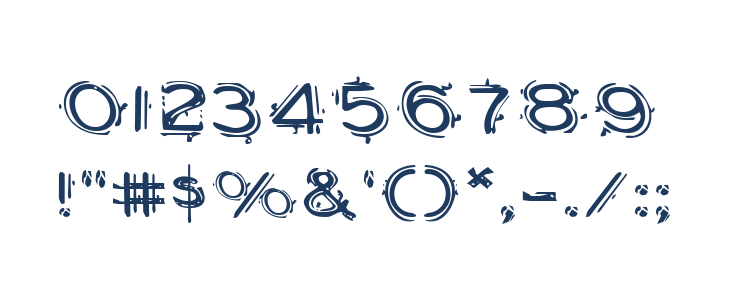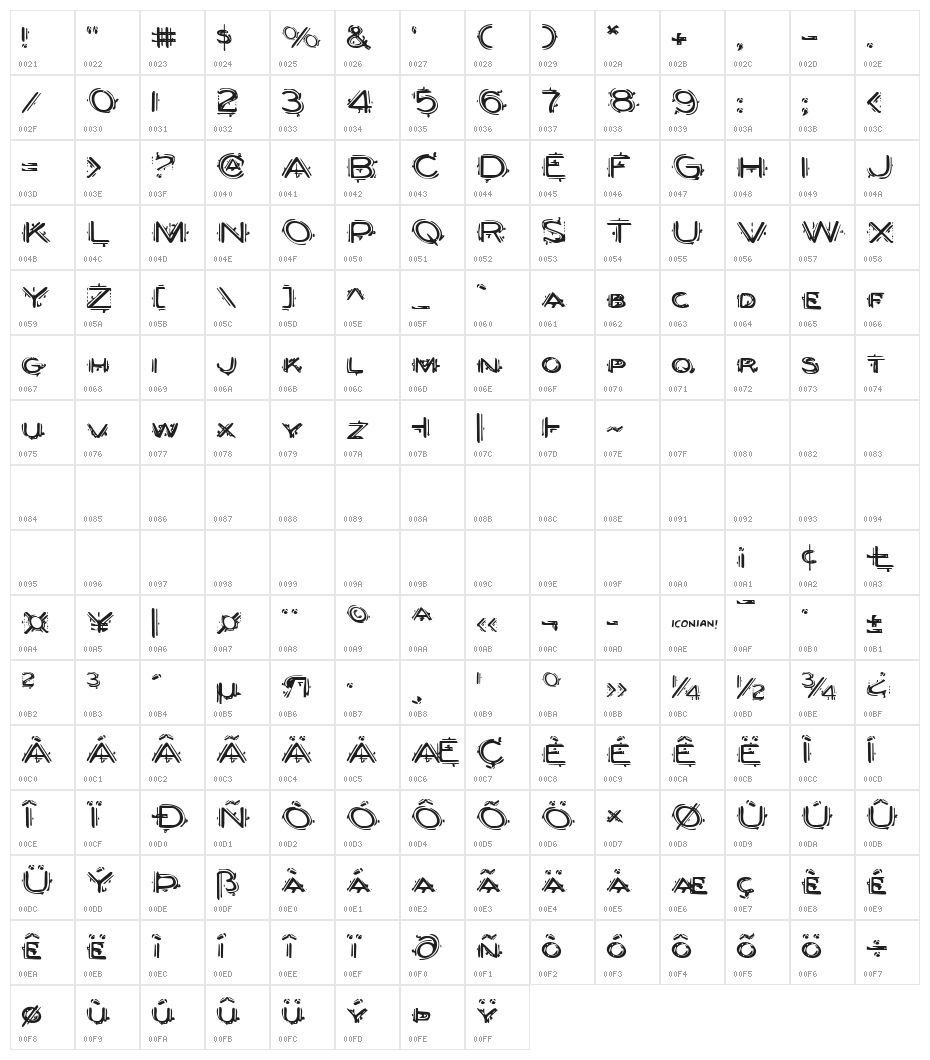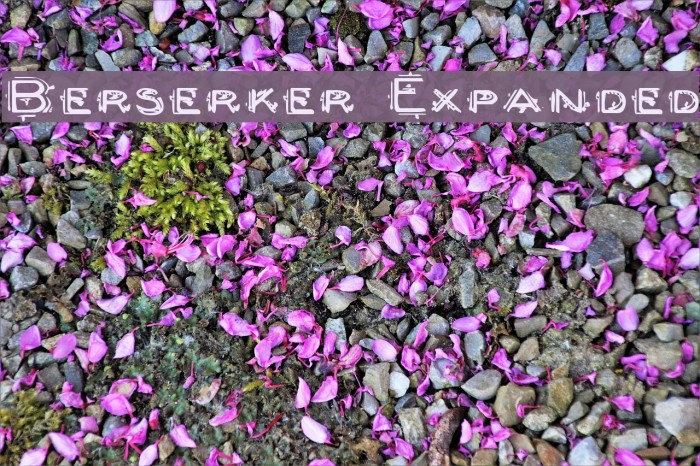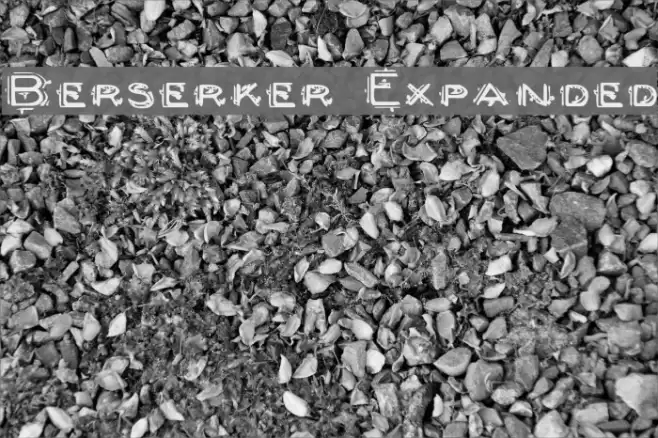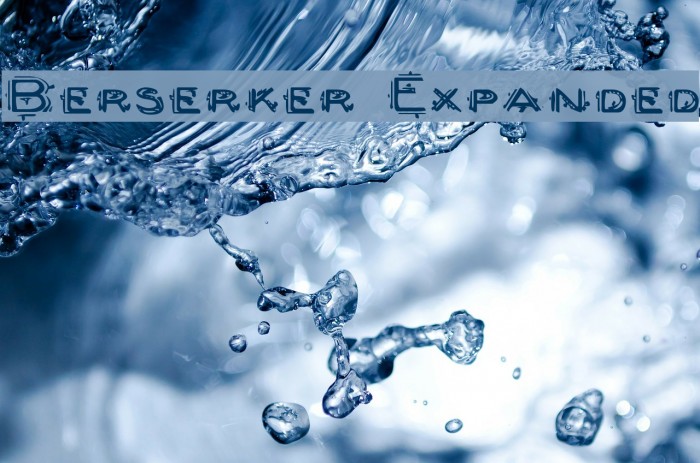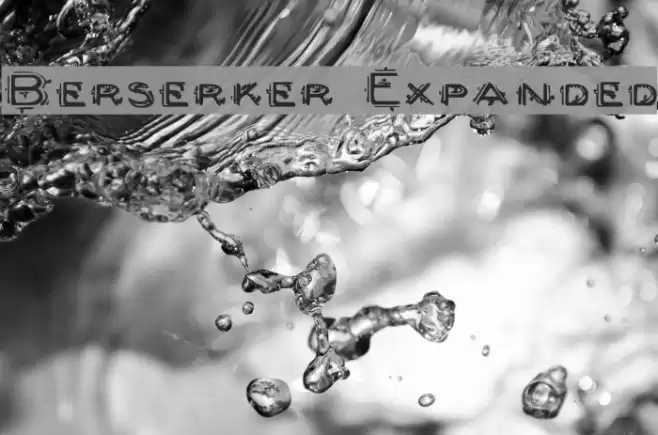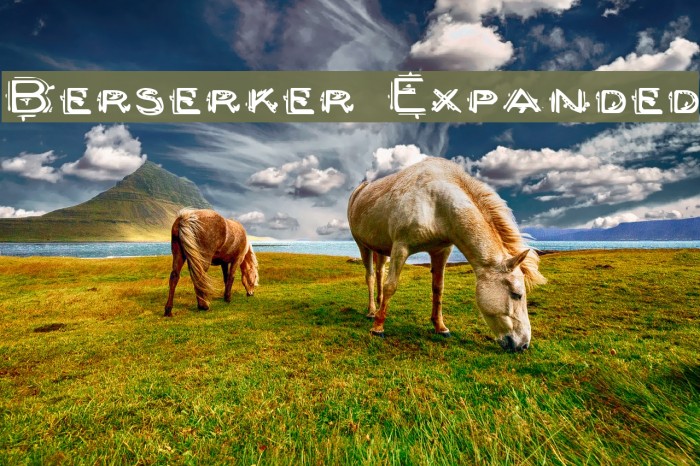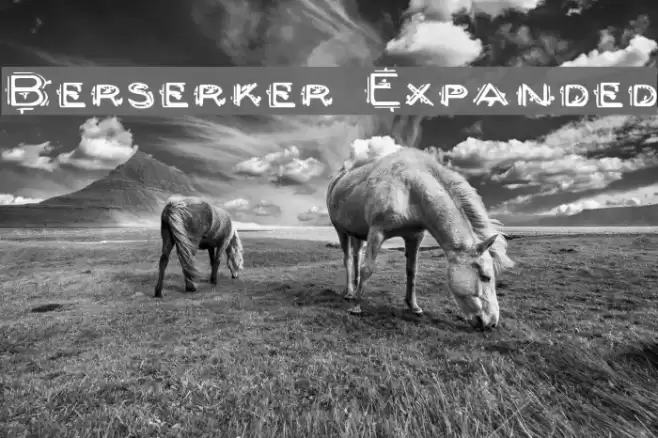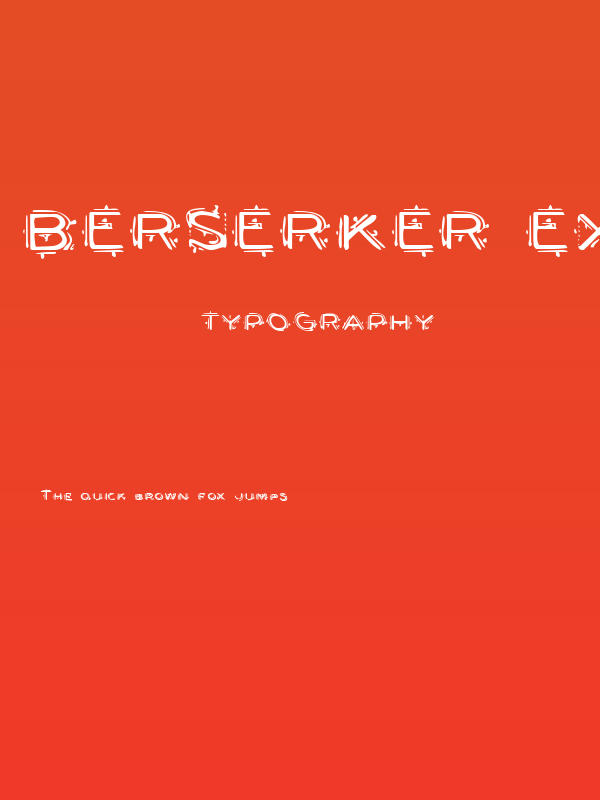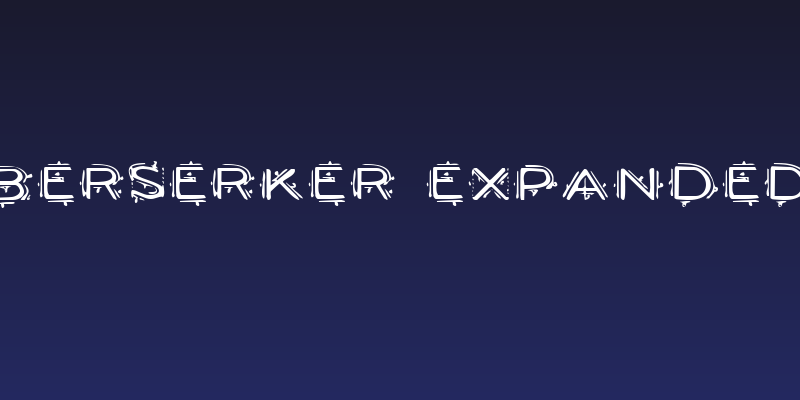
Berserker Expanded Font
Berserker Expanded Description
This font features a bold, distressed style with a unique, grungy aesthetic. The characters are heavily stylized with rough edges and irregular shapes, giving them a chaotic and energetic appearance. The design incorporates elements that suggest wear and tear, adding to its rugged and rebellious feel. Each letter is distinct, with varying degrees of distortion and texture, creating a dynamic and eye-catching look. The font's expanded width enhances its boldness, making it stand out in any design. It is perfect for projects that require a strong, impactful visual presence.
| Overall Style | Grunge, Distressed |
| Proposed Projects | Ideal for album covers, posters, video game graphics, and edgy branding. |